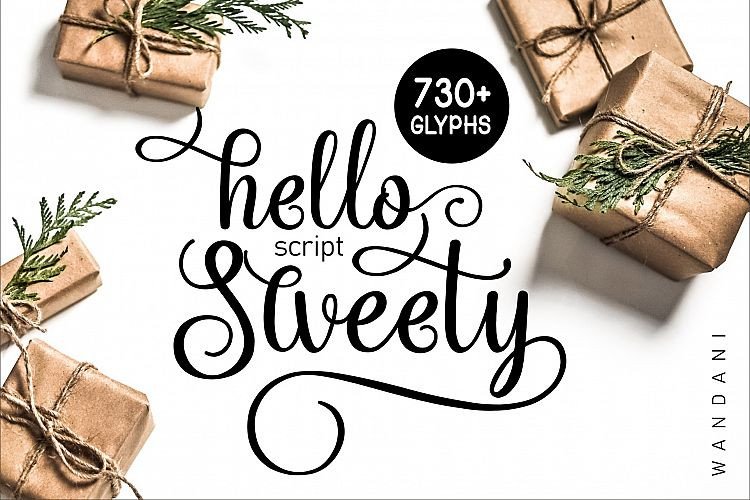
Hello Sweety Script Font
Hello Sweety Script Demo Font
Say hello to the Hello Sweety Font! This is a unique, cool and modern calligraphy font. It’s handwritten style makes it a perfectly versatile font for any occasion! It is designed and shared by Wandani. Hello Sweety Script Font is a beautiful script font with elegant charm complemented by 730+ alternate characters and ligature! This font bridges the line between masculine and feminine design and can add a unique presence to your work.